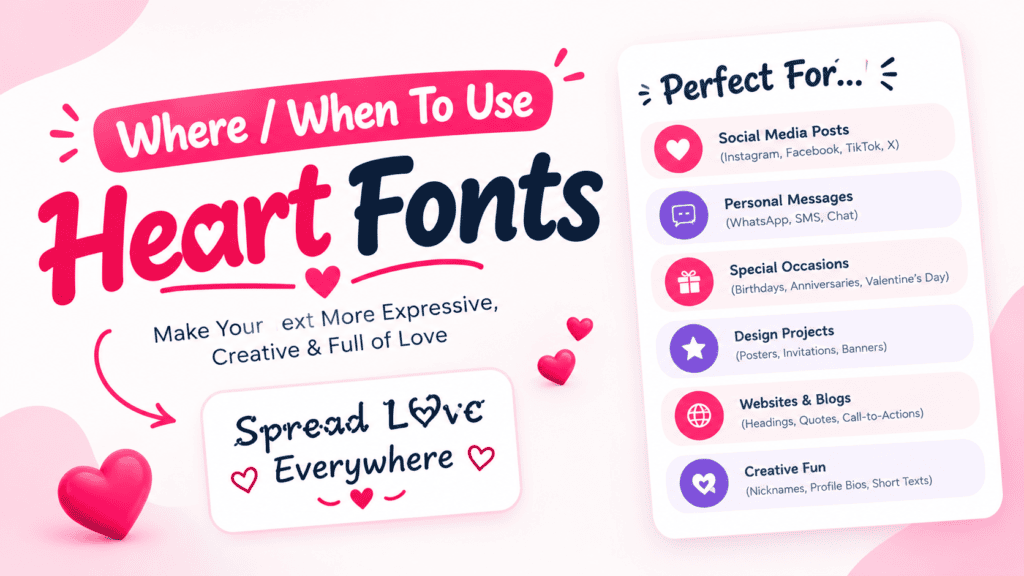
A heart font generator turns messages into expressive text by combining Unicode characters, heart symbols, and decorations. I’ve found this especially useful for bios, captions, usernames, and romantic notes when ordinary typing feels too neutral.
Instead of treating hearts as decoration, you choose a mood and personality through stylish formats, a cute touch, or romantic touches. The result remains easy to copy, paste, and share across platforms and apps today.
What Are Heart Fonts/Symbols/Emoji?
Heart fonts combine heart symbol forms with decorative characters to give ordinary text a more expressive identity. Heart emoji are colorful images, while symbols remain text characters, making each option useful across different digital spaces.
In practice, I treat these choices as visual language: Unicode text designs can shape names, messages, or cute profiles, while heart colours add emotional context. Their appearance may vary, but affection often remains recognizable online.
Heart Colour / Emoji Meanings
Heart colours communicate different moods beyond decoration. A Red heart commonly signals Love, while Orange can suggest Warmth. Yellow often represents Friendship, making colour choice useful for expressive digital communication today for posts and messages.
In my experience, Green hearts suit Nature or balanced feelings, whereas Blue suggests Peace. Purple may express Sensitivity, while Black can fit Dark Humor or a more restrained emotional tone online when styling social profiles.
How To Copy / Use Heart Symbols & Fonts
To use heart fonts effectively, enter your message, test a simple heart style, then copy and paste the preferred result. I usually check readability before adding decorative characters to captions or profiles across different devices.
For personal use, choose symbols that match the message rather than filling every space. A heart decorated text result can add extra personality to romantic captions, while keeping presentation natural across WhatsApp, Instagram, chats.
Where / When To Use Heart Fonts
Heart fonts fit moments when ordinary writing needs emotional emphasis, especially social media profiles, captions, couple usernames, invitations, and romantic messages. Their decorative appearance adds personality without requiring a special app or basic editing skills.
I often recommend heart styles for greetings, profile introductions, and community posts where tone matters. Cute and romantic appearance works well for TikTok captions, Discord, and WhatsApp, provided Unicode text styles remain readable across devices.
Why Use Heart Fonts / Benefits
Heart fonts give posts extra personality by blending decorative characters with creative text options, helping a profile or caption feel personal. I often find this useful when a clean message needs warmth without lengthy design.
They reinforce romantic tone across social media, including Instagram bios, love messages, and birthday wishes. Because styling remains text-based, users can copy and paste quickly, test styles, and choose a look matching the occasion without software.
Popular Heart Font Styles
Popular Heart Fonts range from elegant calligraphy and cute designs to bold heart embellishments, giving plain text a visual identity. In practice, I find Aesthetic Heart Symbols useful for profiles, captions, and romantic event announcements.
Style selection can also reflect emotion: Romantic Heart & Love Symbols suit affectionate messages, while Big Heart Symbols, Colourful Heart Emojis, and decorative characters create stronger emphasis. Mixing subtle and bold forms keeps heart-themed text balanced.
About Heart Font
A heart font adds a warmer visual identity by turning ordinary lettering into stylish fonts with hearts and decorative shapes. This online tool can create custom heart-themed text for names, captions, profiles, and romantic occasions.
In practice, I find heart styling most useful when a plain phrase needs personality without installing software. Users can transform text, explore themes, and apply heart decorations for Valentine’s Day, weddings, or everyday messages quickly.
Conclusion
A good heart font generator is less about decoration and more about choosing a style that fits your message. From heart decorated fonts to Unicode symbols, each result can add personality quickly, personal charm, today.
In practice, I find creative text works best when it remains readable across platforms. Whether shaping a bio, caption, or username, thoughtful style choices keep love visible without overwhelming the original meaning online spaces today.
What Are Heart Decorated Fonts?
Heart decorated fonts combine hearts with ordinary letters to create decorative characters and stylish text formats, giving names, bios, and captions a look. I often use them when simple text needs warmth without sacrificing readability.
On phones, heart fonts usually work when they use Unicode characters, because the device can display them without installing a special app. Still, appearance may vary with fonts, updates, or operating systems consistently.
Do Heart Fonts Work In Text Messages On iPhone And Android?
For text messages on iPhone and Android, Unicode text styles can be pasted directly into chats. In practice, I find simple heart characters reliable, while elaborate styles may depend on the recipient’s supported app.